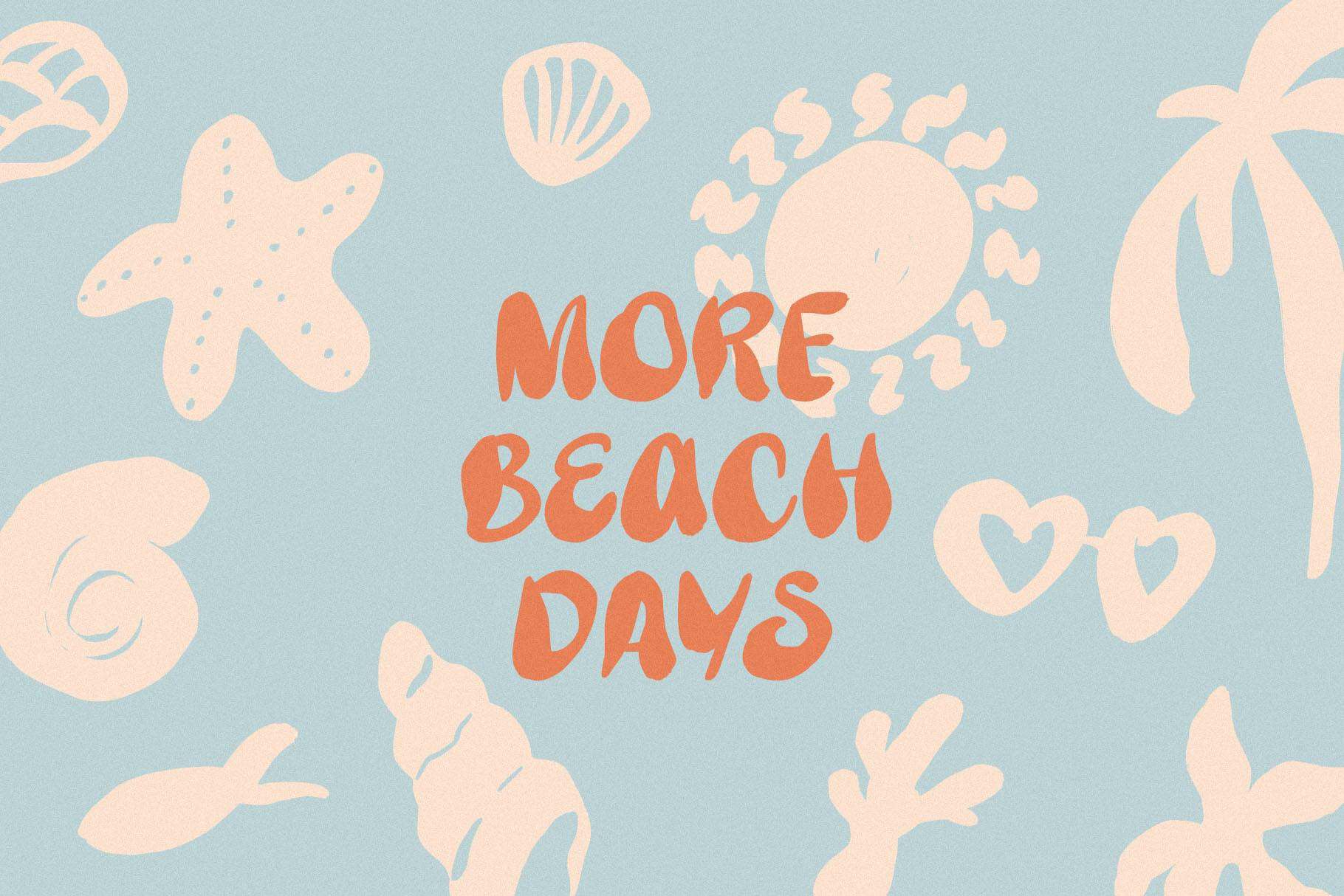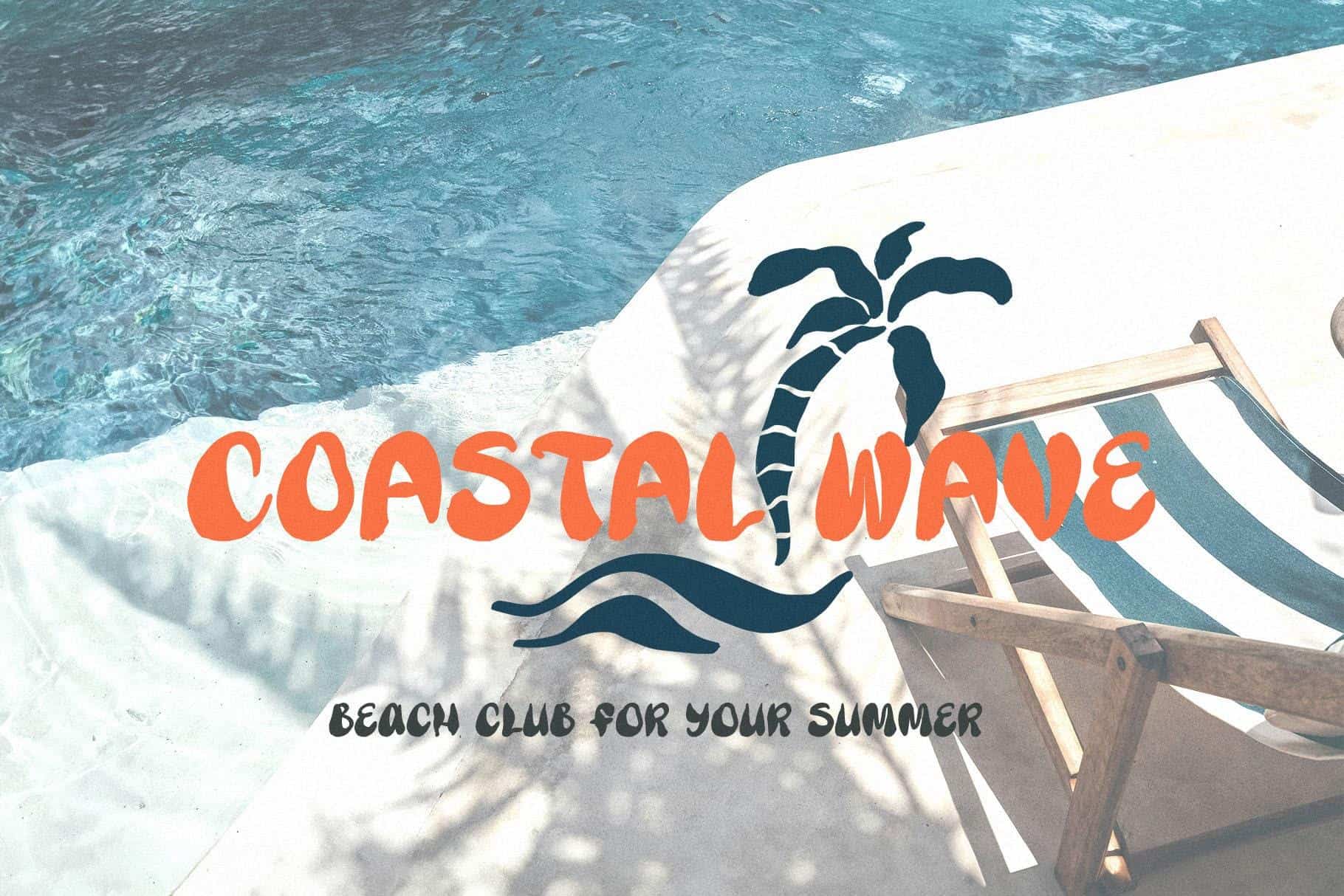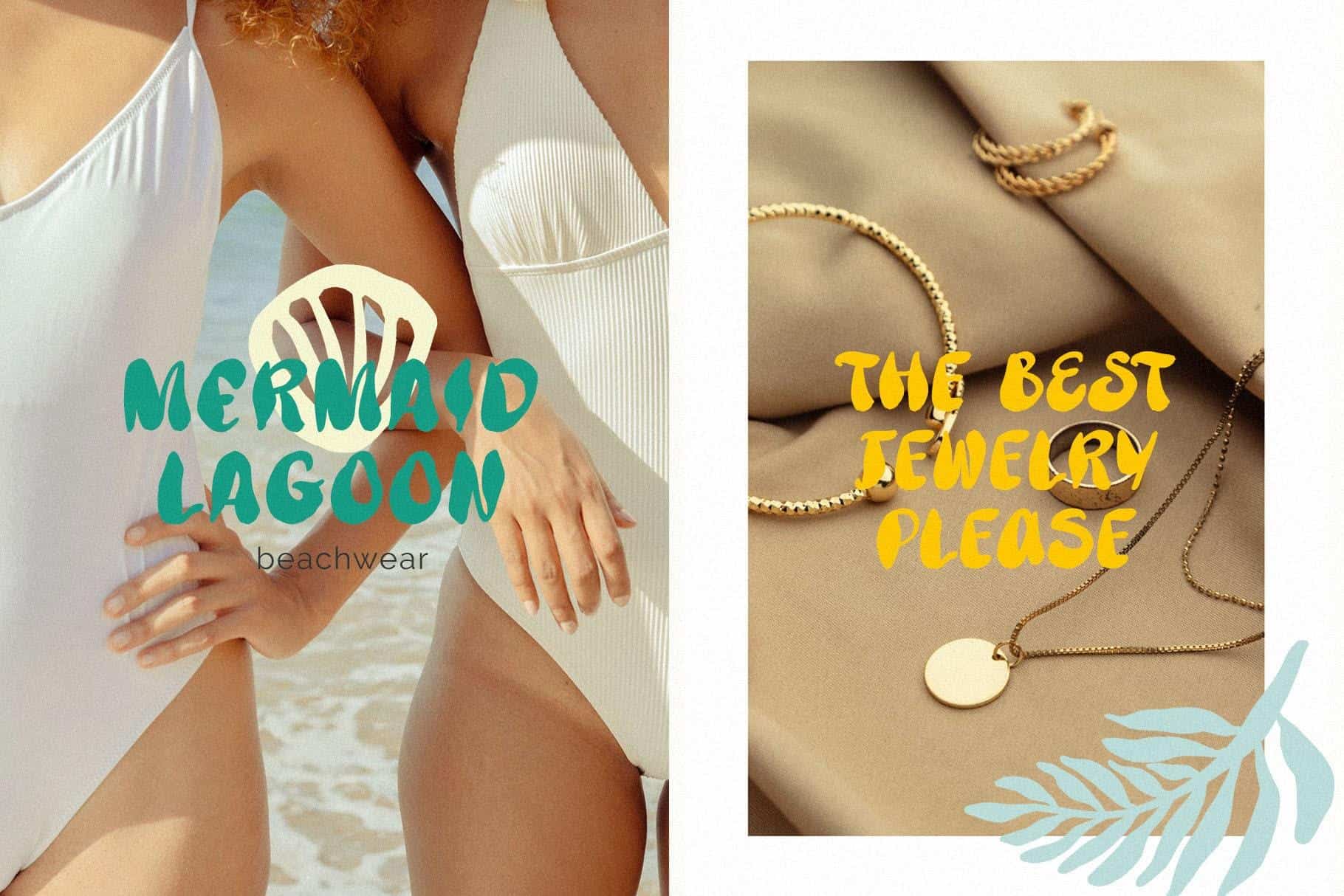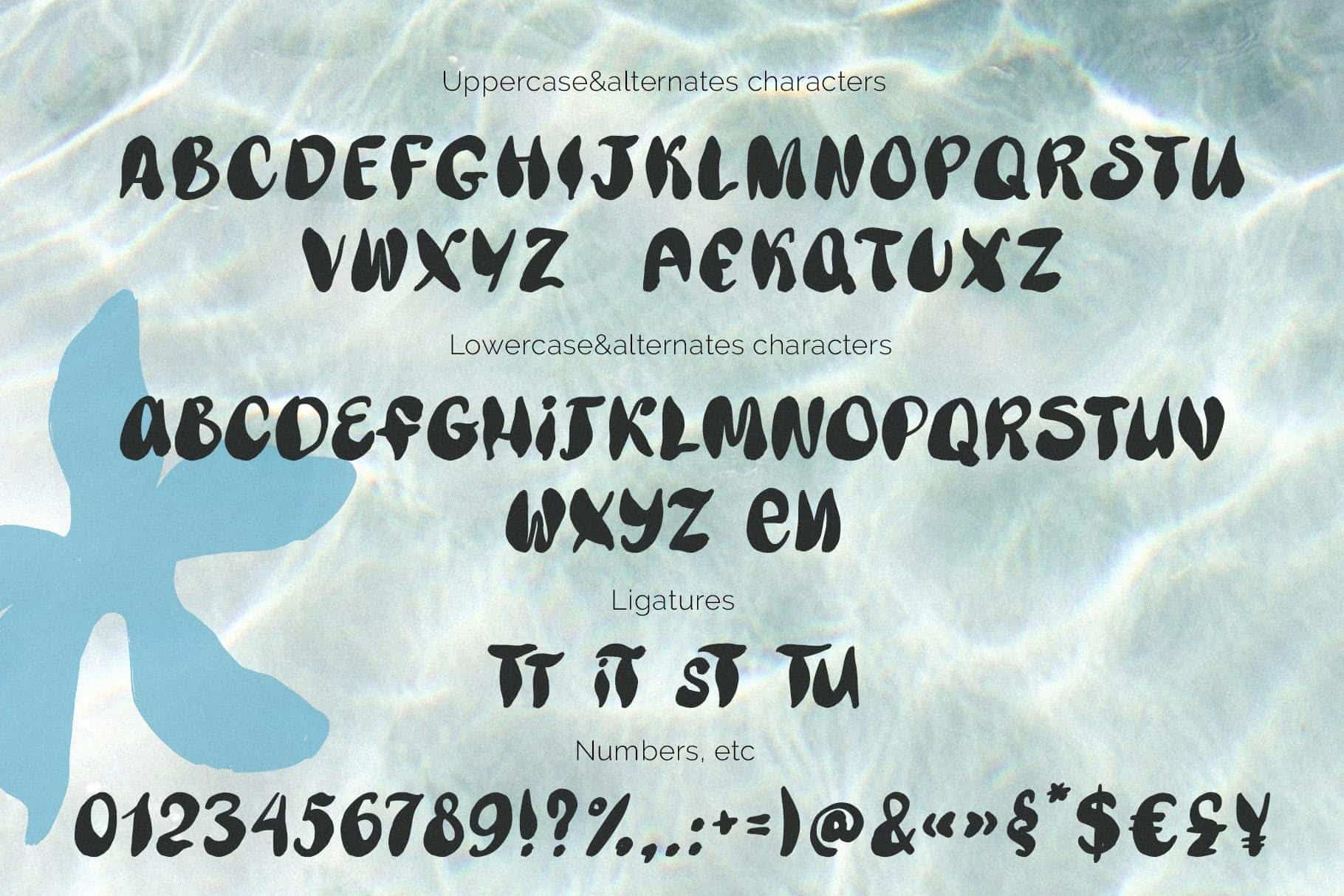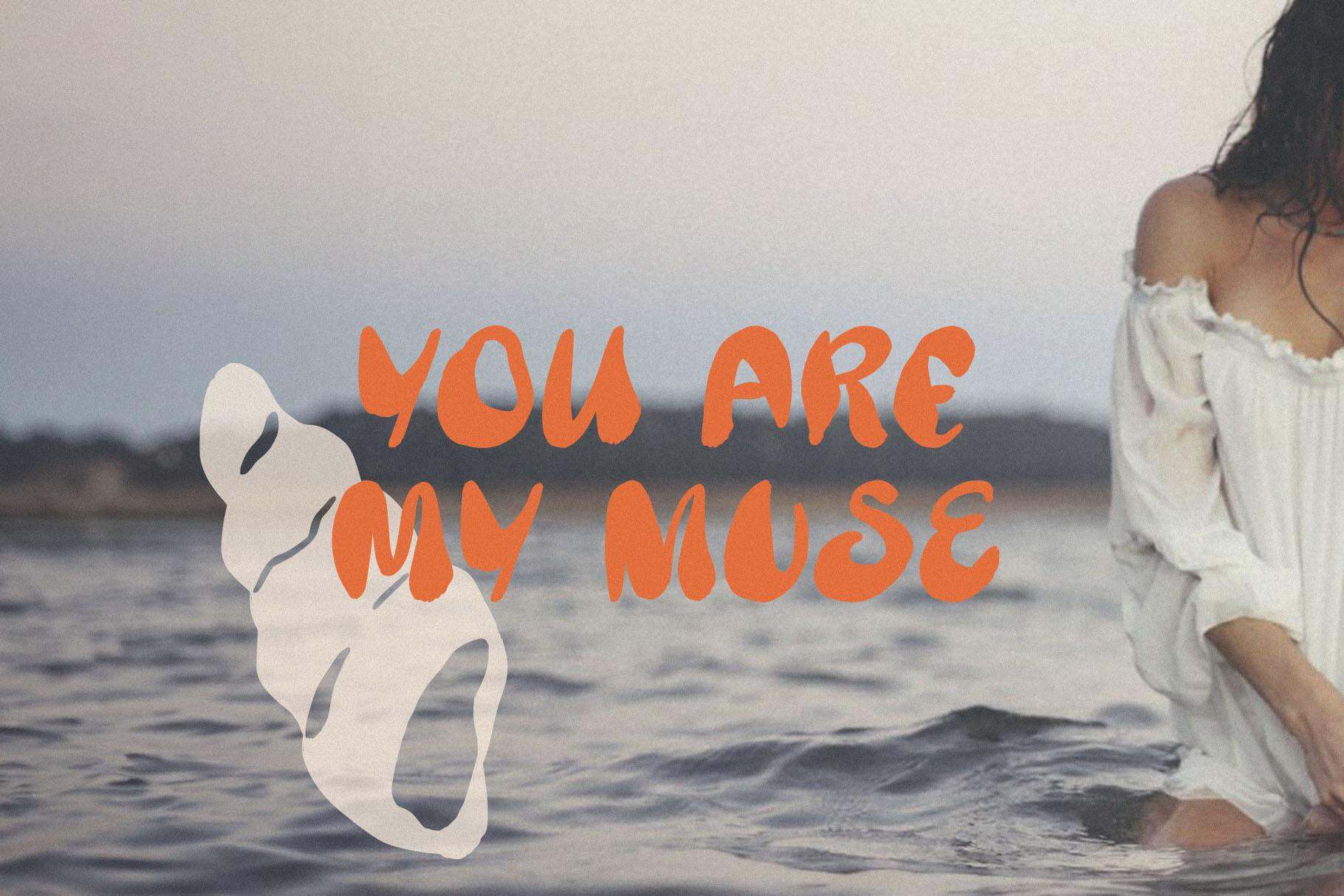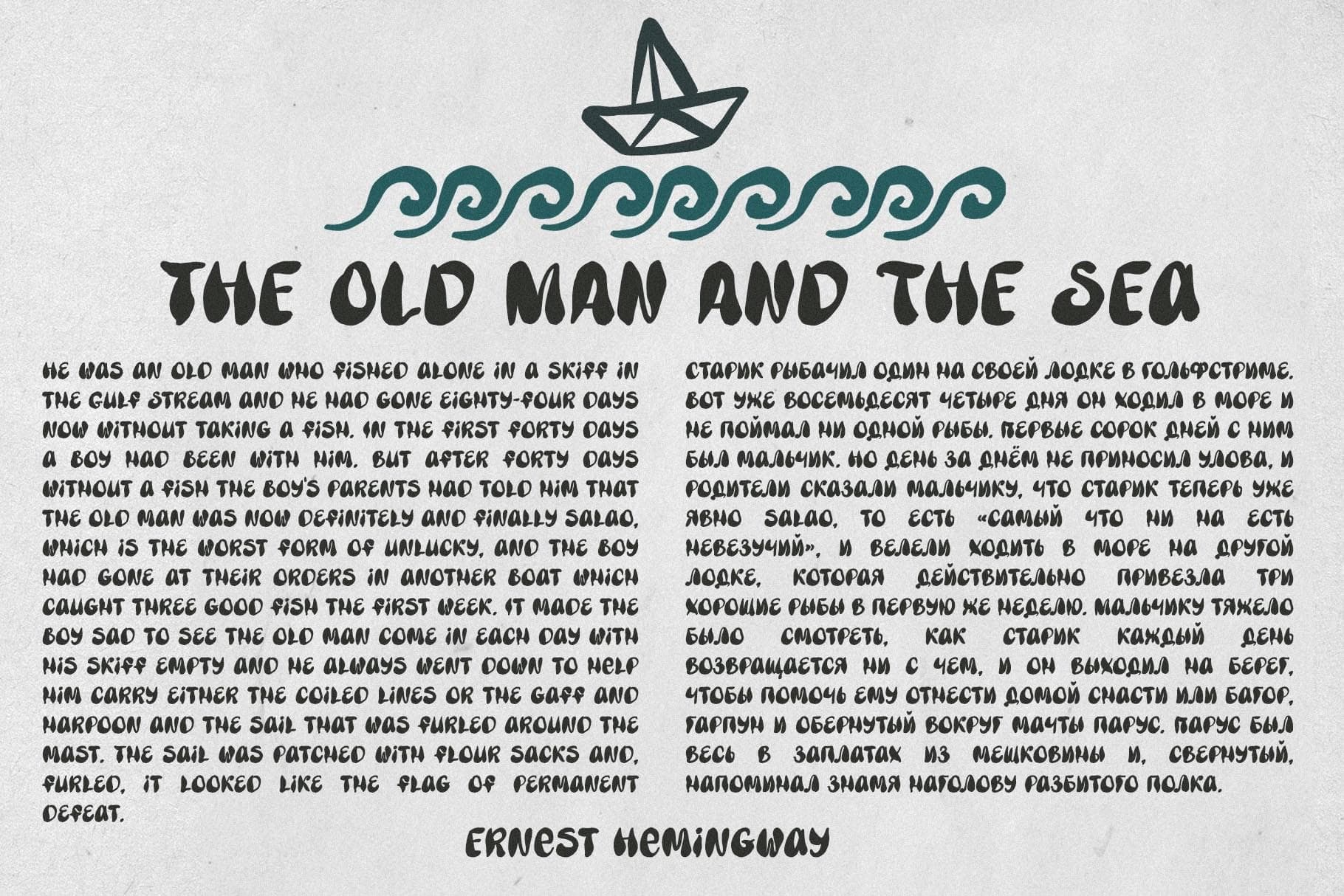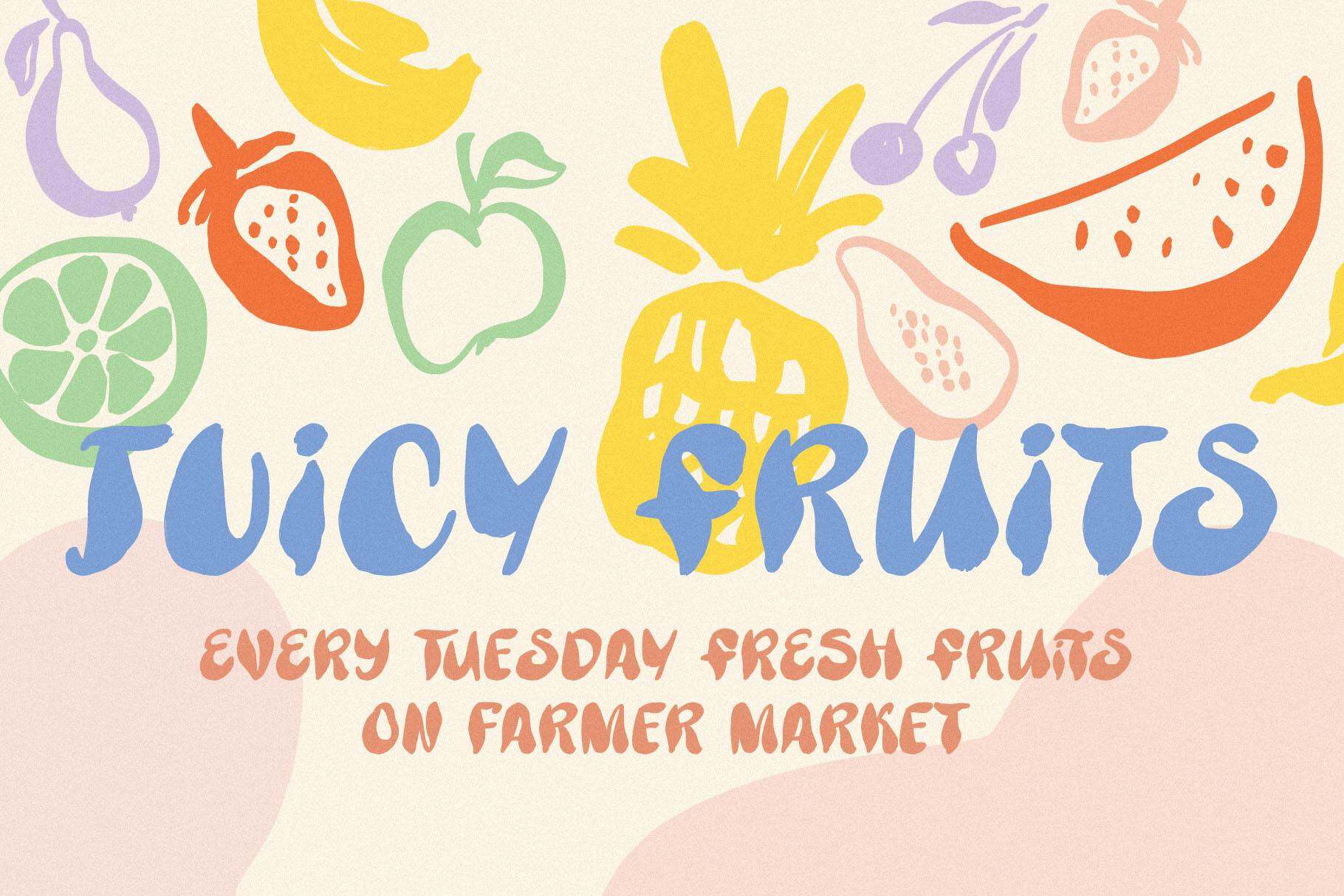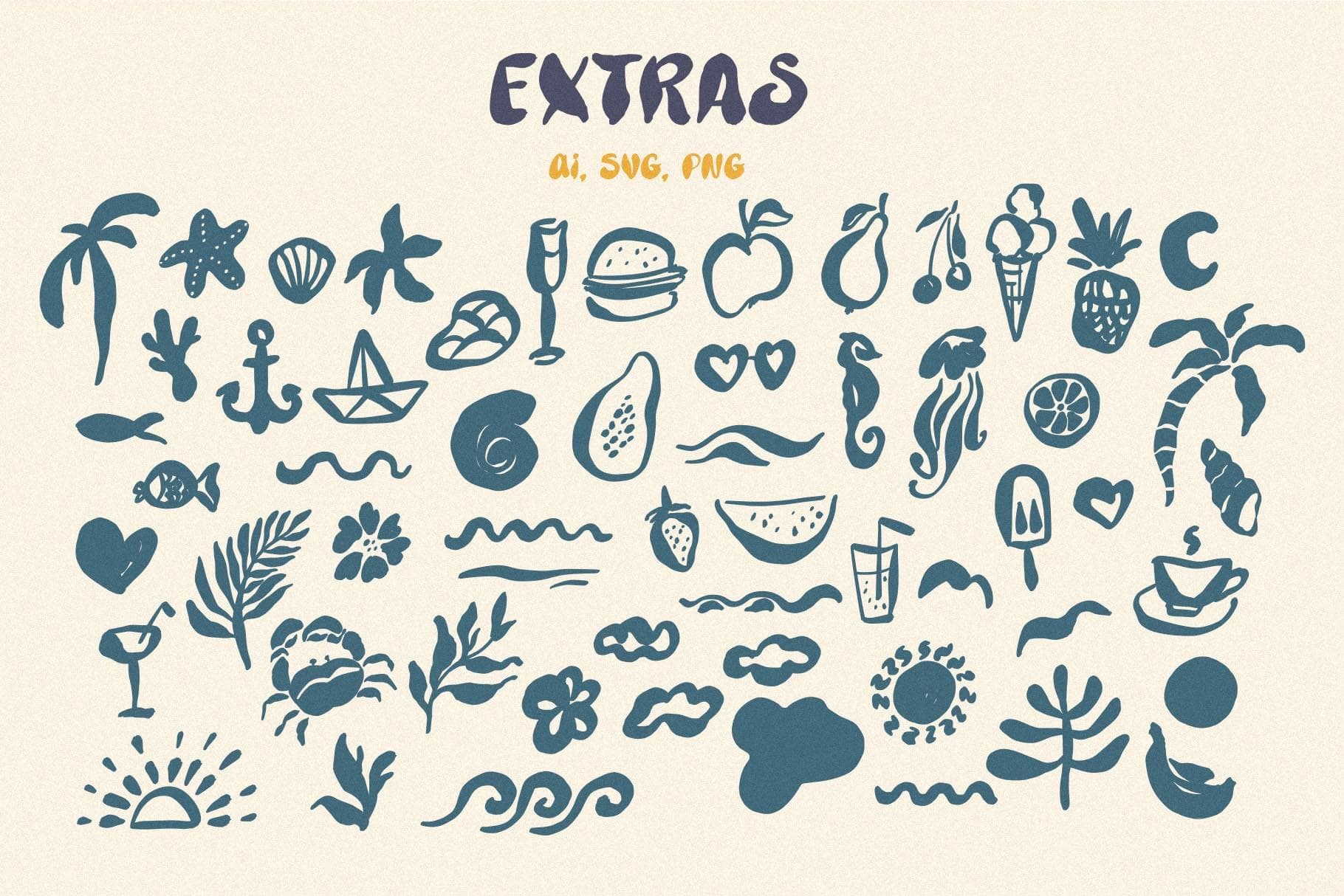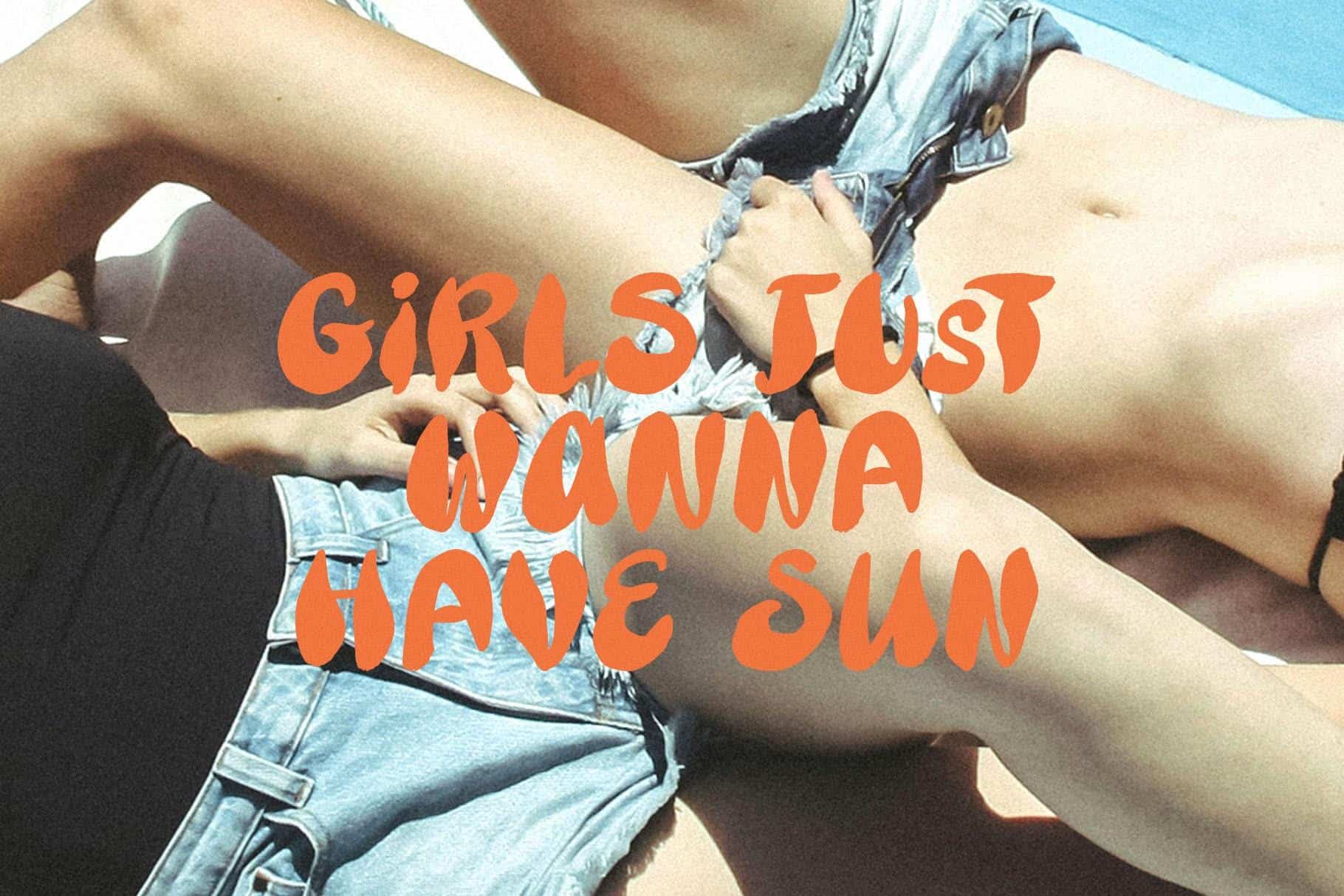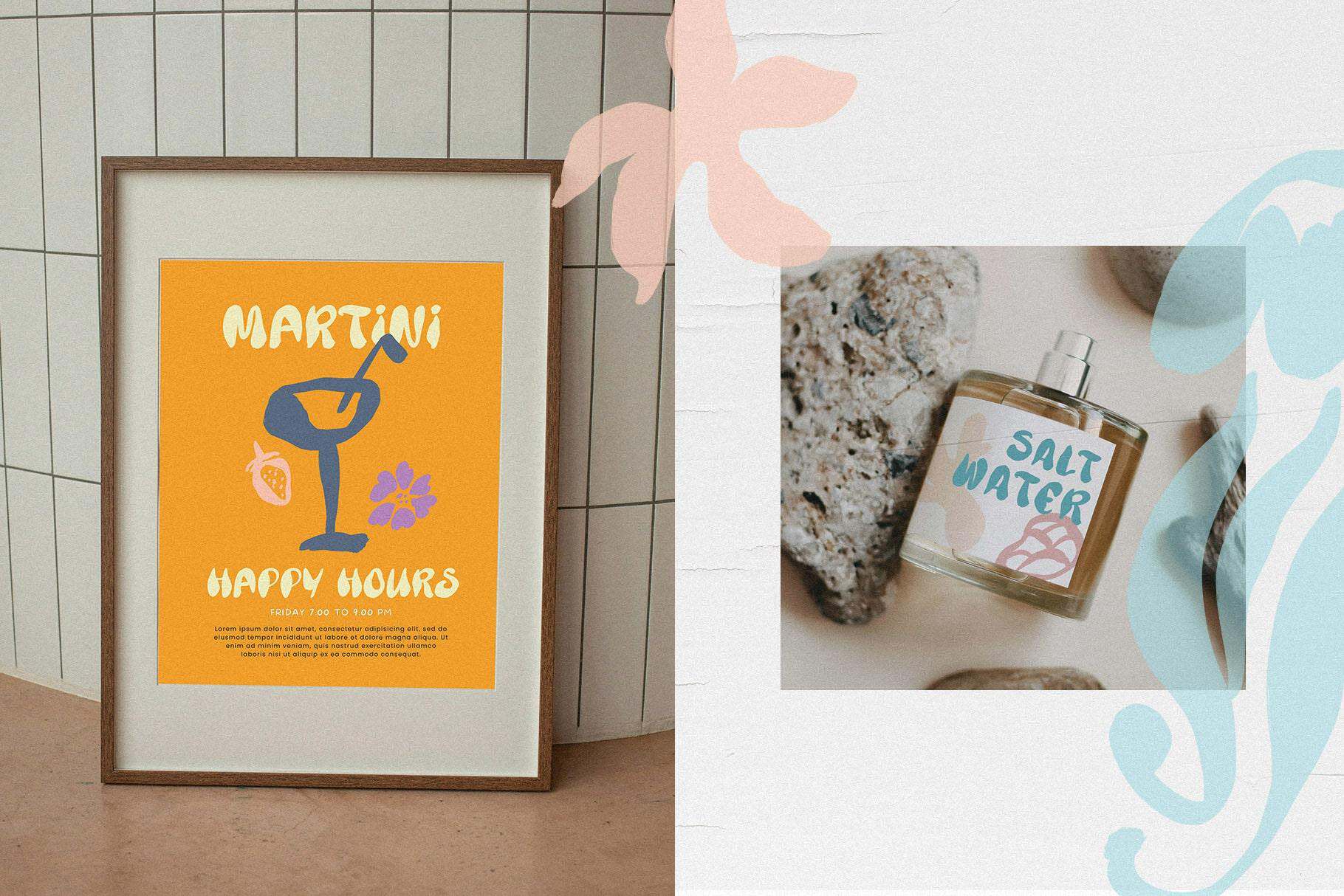
Coastal soul wavy groovy handwritten font + sea illustrations
Embrace the sunshine with Coastal Soul Wavy Font, a handwritten groovy typeface that blends modern design with a touch of retro charm
Dive into Summer with Coastal Soul Wavy Font
Embrace the sunshine with Coastal Soul Wavy Font, a handwritten groovy typeface that blends modern design with a touch of retro charm. Boho vibes and beachy energy infuse your creations, while included hand-drawn bohemian icons add a unique touch.
Effortlessly design posters, branding, logos, headlines, websites, packaging, and social media. Coastal Soul’s smooth curves and alternate letterforms offer endless creative possibilities. Supports many languages, including Cyrillic.
Perfect for:
Modern posters with a timeless twist
Effortlessly stylish branding
Unforgettable logos
Bold headlines & summery websites
Eye-catching packaging & social media
Coastal Soul has extensive language support, it includes English, French, German, Italian, Spanish, Portuguese, Danish, Norwegian, Swedish, Finnish, Estonian, Romansh, Turkish, Cyrillic.